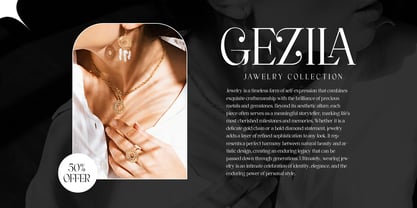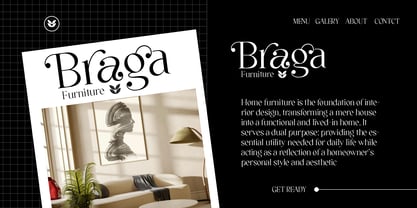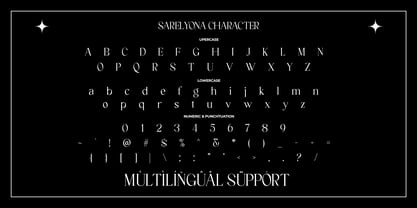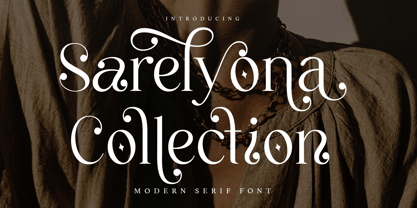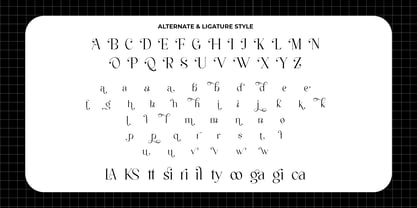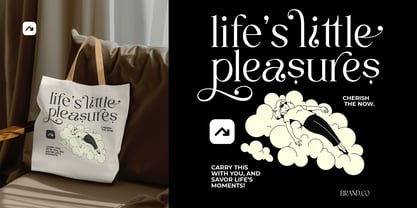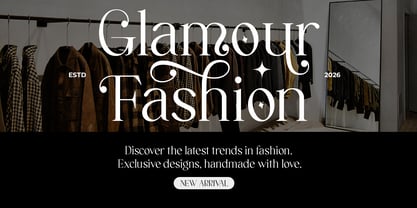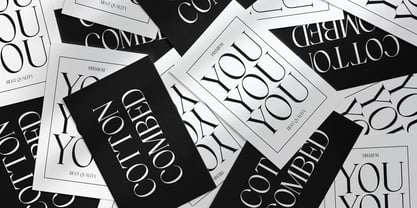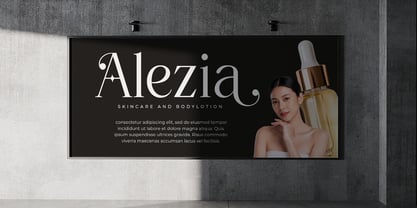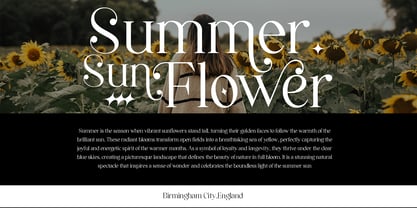
Sarelyona Collection
The Sarelyona Collection Font Family was designed by Zaki Muhammad and published by madjack.font. Sarelyona Collection contains 1 styles. More about this family
Sareyona Collection is a modern serif font with an elegant and artistic touch. It blends classic letterforms with graceful, decorative swashes, creating a luxurious, feminine, and refined impression. With its smooth curves and balanced thick-to-thin contrast, this font stands out while remaining beautifully readable. Perfect for branding, logos, wedding invitations, editorials, fashion projects, and premium designs that aim to convey a sophisticated and timeless feel.